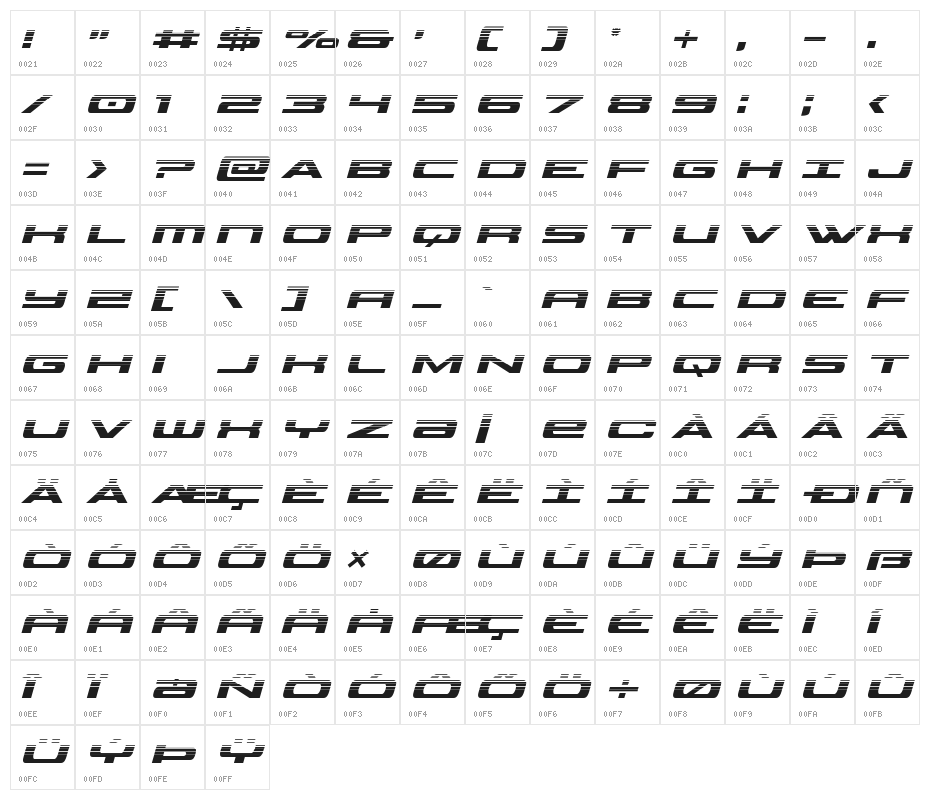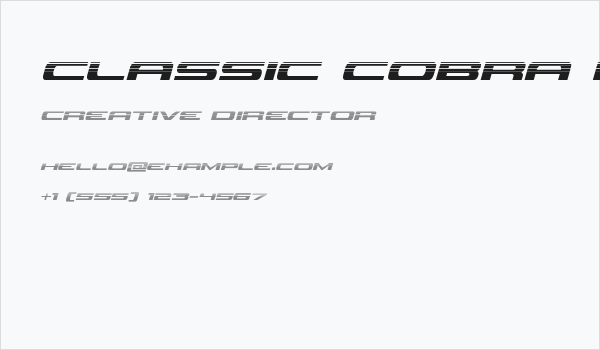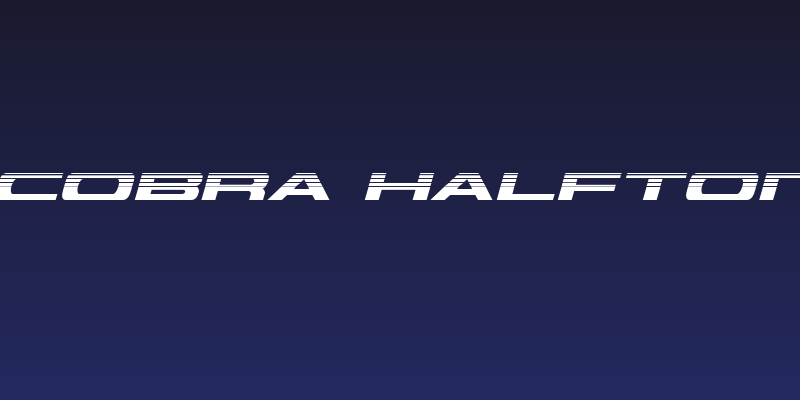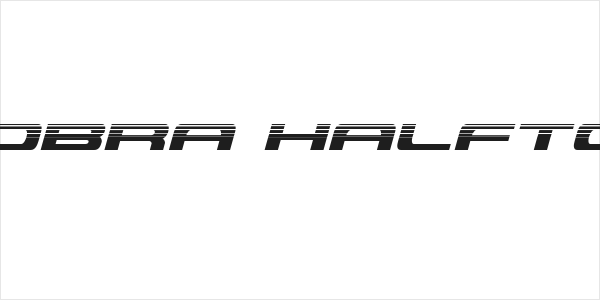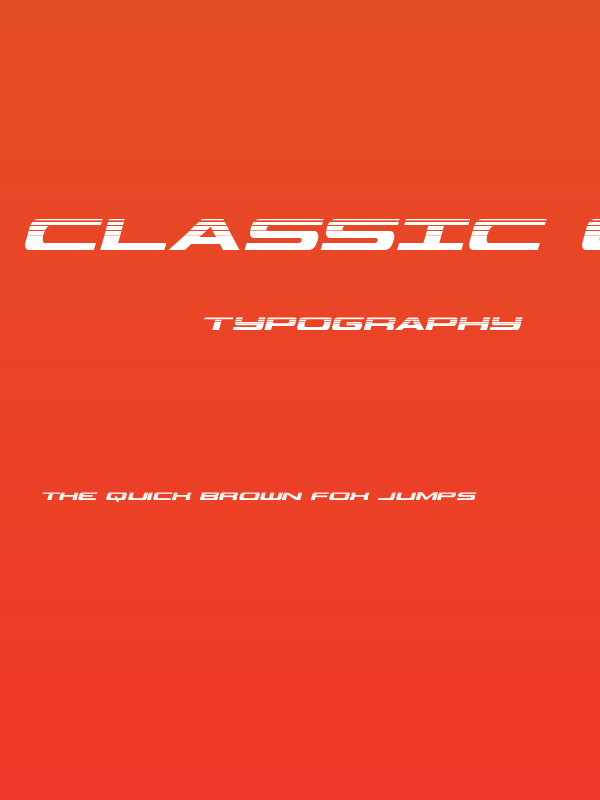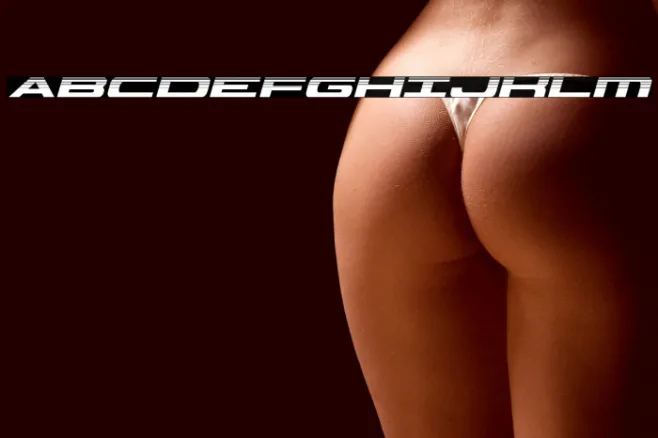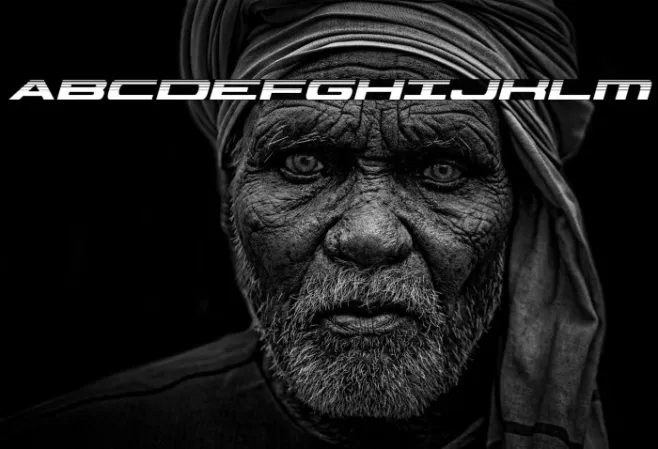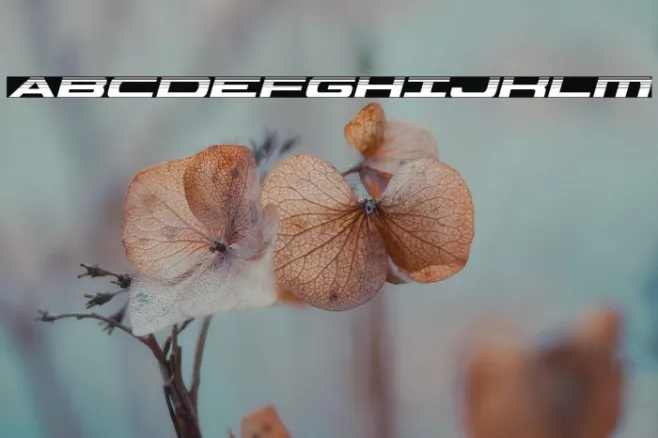
Classic Cobra Halftone Italic Font
Classic Cobra Halftone Italic Description
This font features a dynamic and futuristic design with a halftone effect that gives it a sense of motion and speed. The italicized letters are sleek and angular, with a distinct slant that enhances their modern appeal. The uppercase and lowercase characters maintain a consistent style, with sharp edges and a streamlined appearance. The numbers and special characters are equally bold and expressive, making them suitable for attention-grabbing designs. The halftone pattern adds a unique texture, making this font ideal for projects that require a contemporary and edgy look.
| Proposed Projects | Ideal for automotive branding, sports team logos, video game titles, and futuristic-themed posters. |